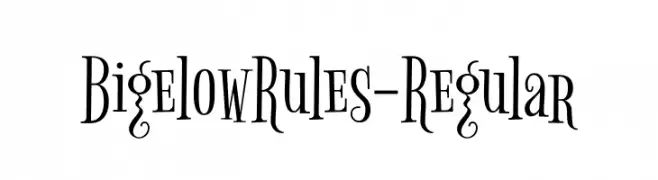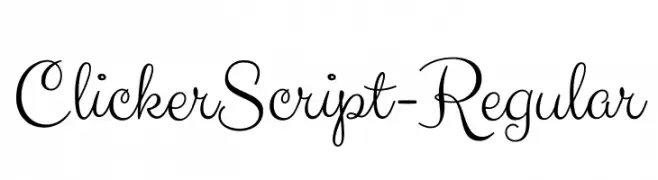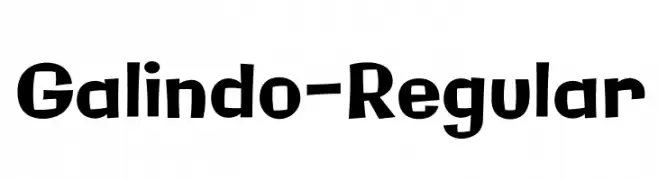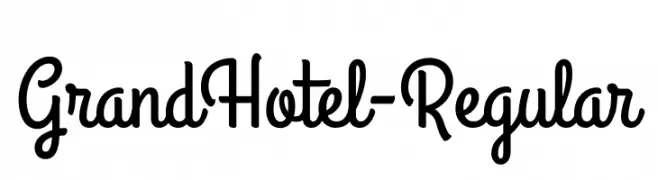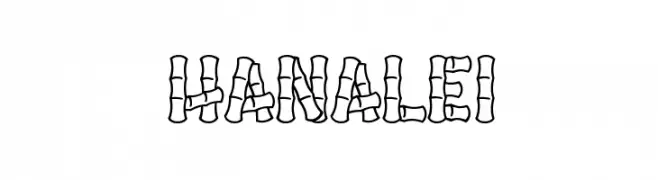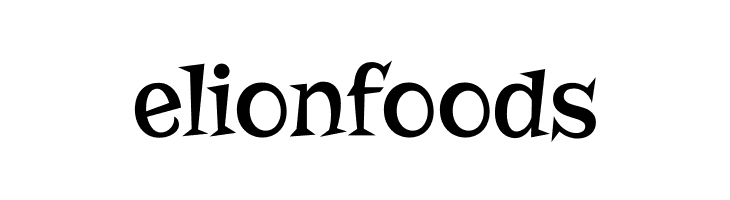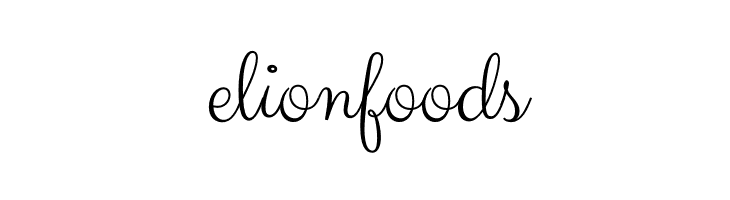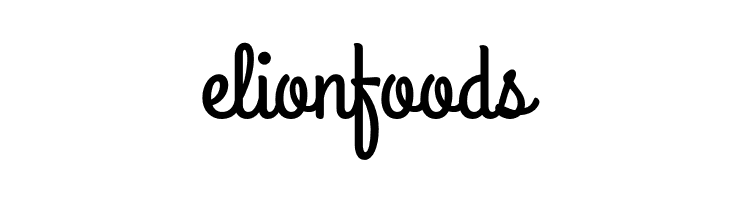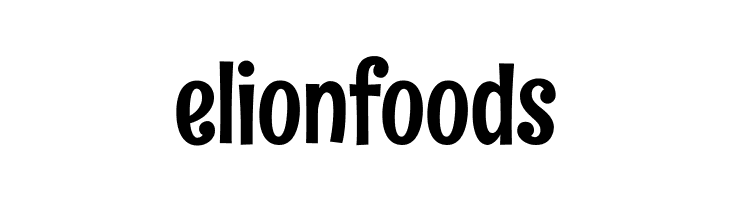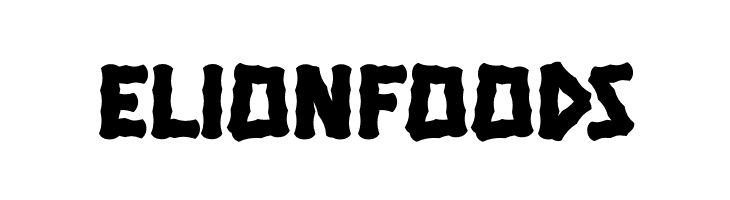
A bold, playful font with exaggerated serifs and a whimsical style.
An elegant script font with flowing, cursive strokes and a sophisticated appearance.
A charming and elegant script font with smooth, flowing lines.
A classic, elegant script font with flowing, connected letters.
A bold, playful font with rounded characters and a whimsical style.
A whimsical serif font with tall, narrow letterforms and playful serifs.
A bold, playful font with a hand-drawn, textured appearance.
A playful, decorative font with a hand-drawn, bamboo-like appearance.
A graceful script font with flowing, connected strokes and elegant flourishes.
A playful, bold font with rounded, whimsical characters.